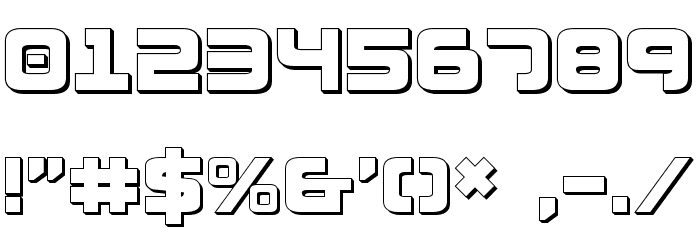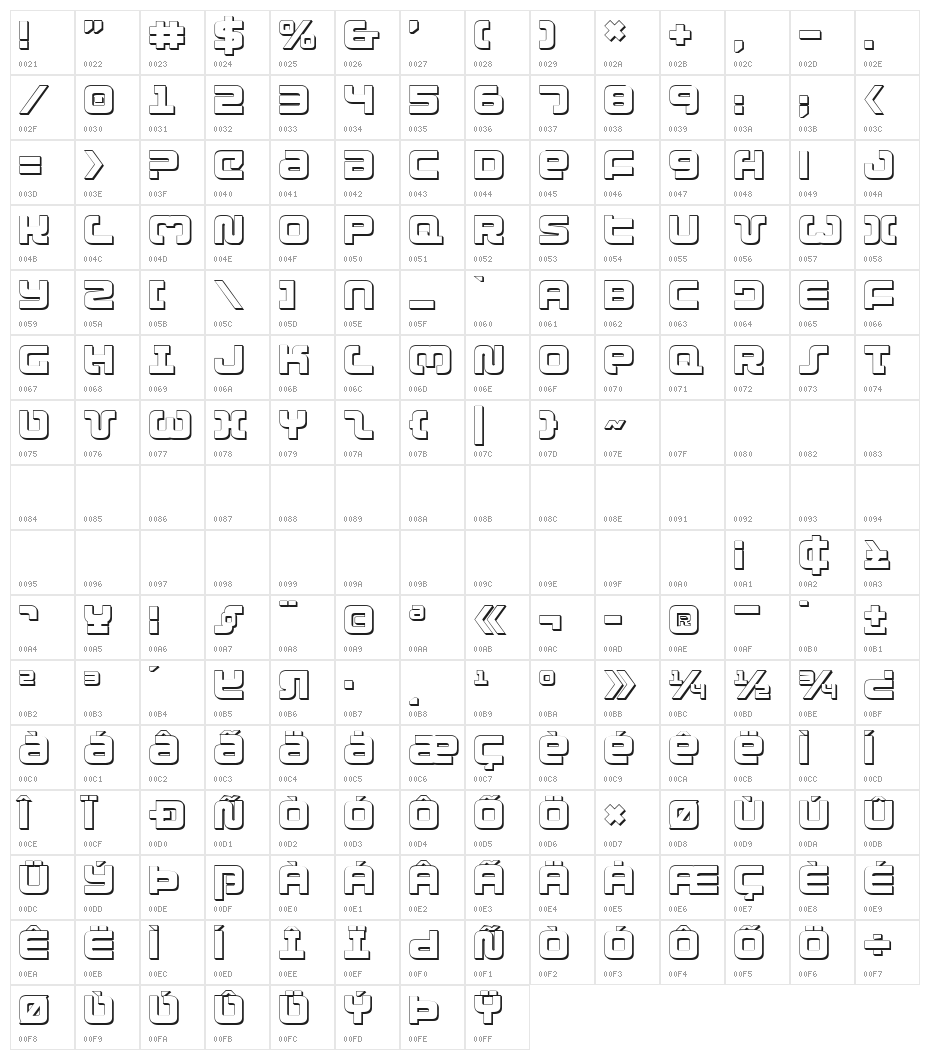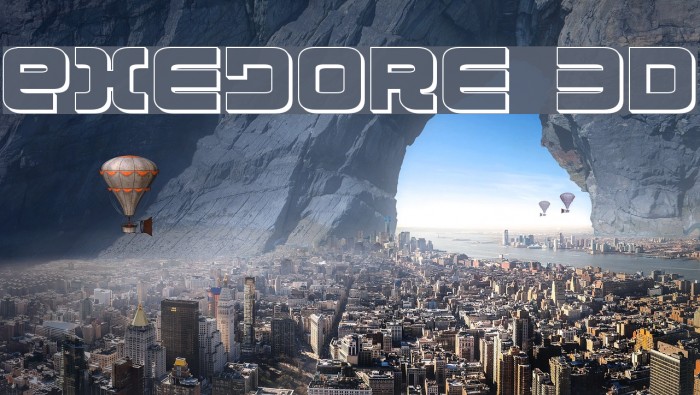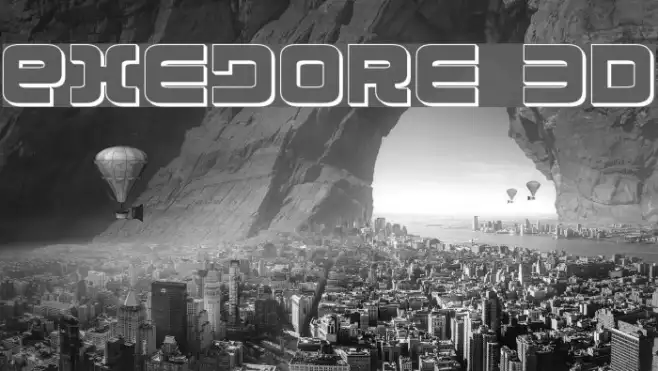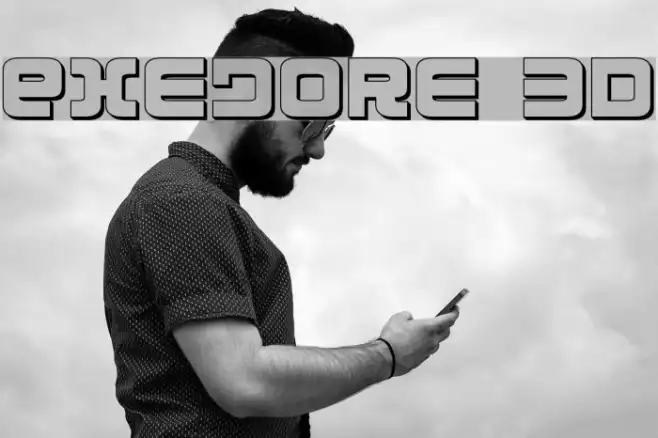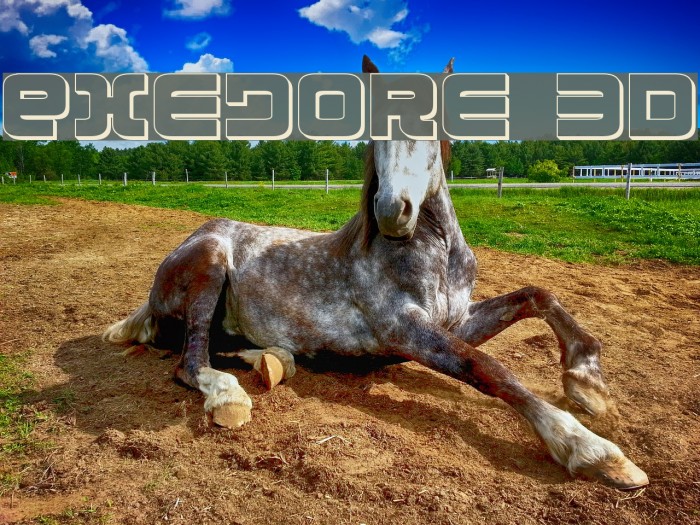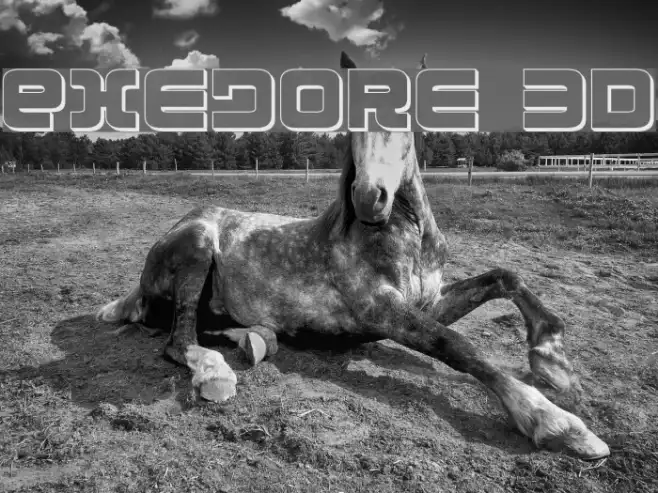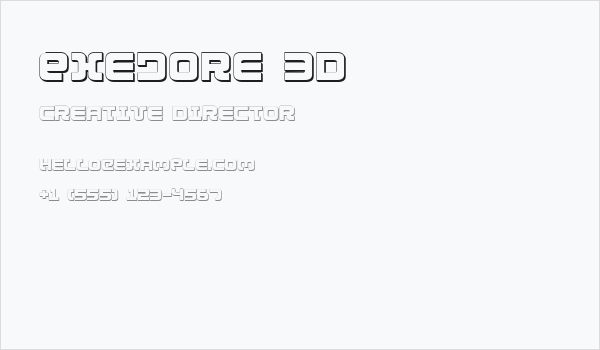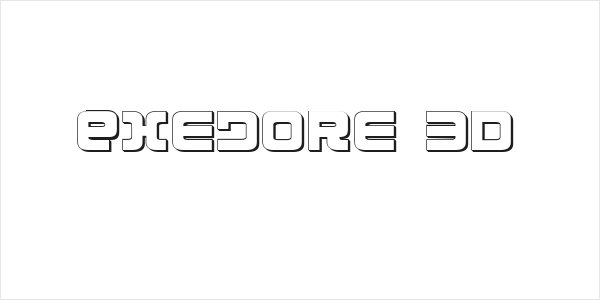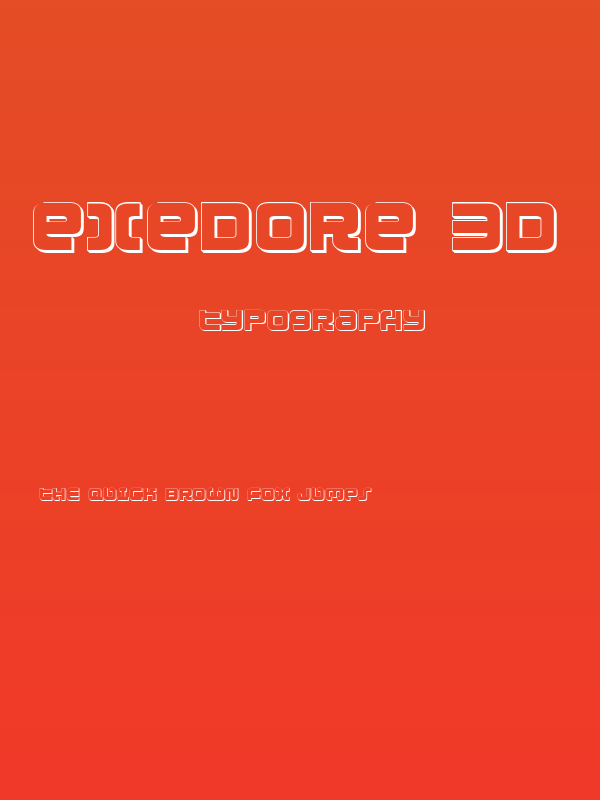
This font features a bold, three-dimensional appearance with a distinct outline that gives each character a sense of depth. The geometric shapes are consistent throughout, with rounded edges that soften the overall look. The uppercase and lowercase letters maintain a uniform height, contributing to a cohesive visual style. Numbers and special characters are designed with the same attention to detail, ensuring they integrate seamlessly with the alphabet. The font's unique style makes it stand out, ideal for projects that require a modern and futuristic aesthetic.
| Proposed Projects | Ideal for futuristic designs, tech branding, video game titles, and sci-fi themed projects. |